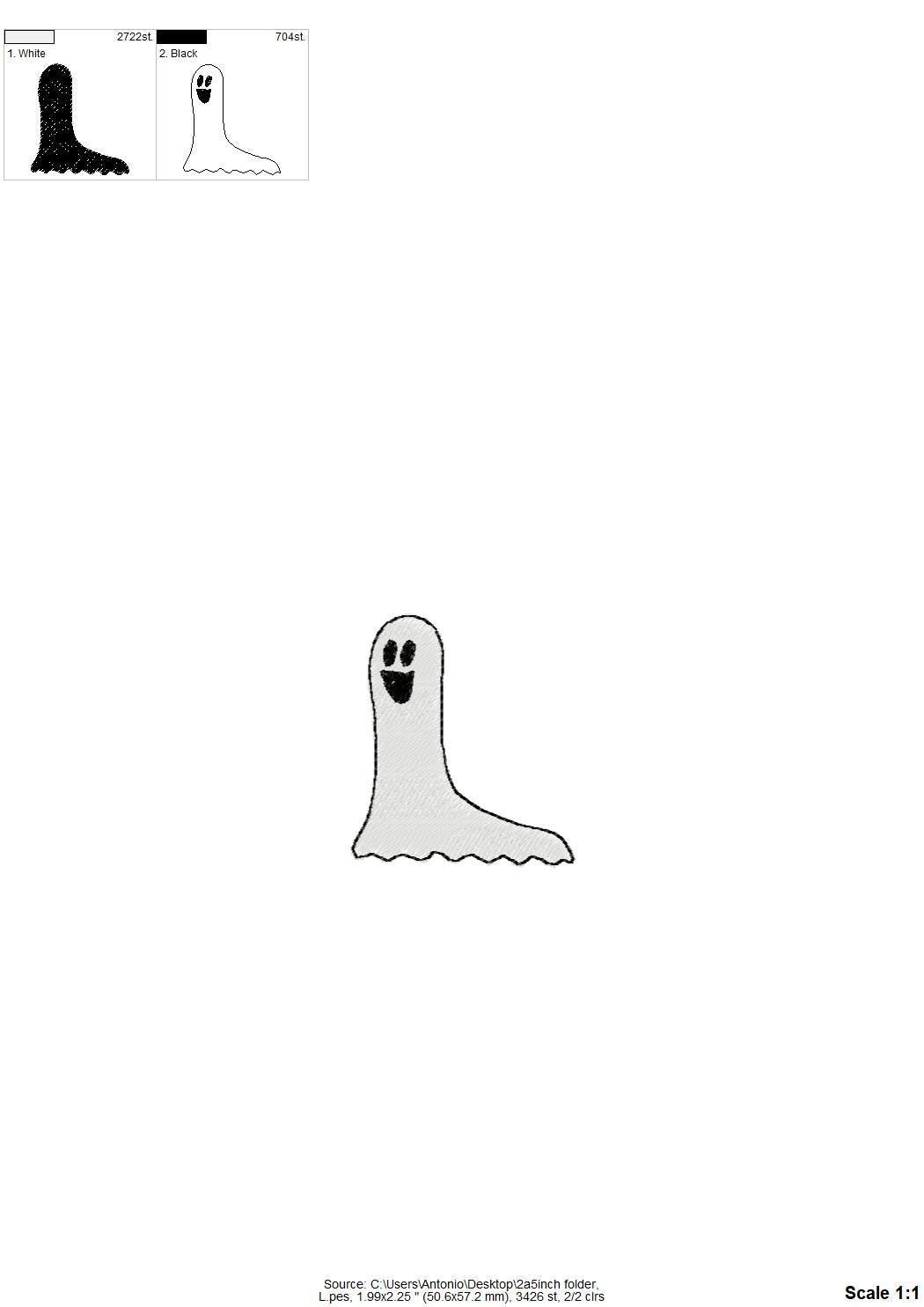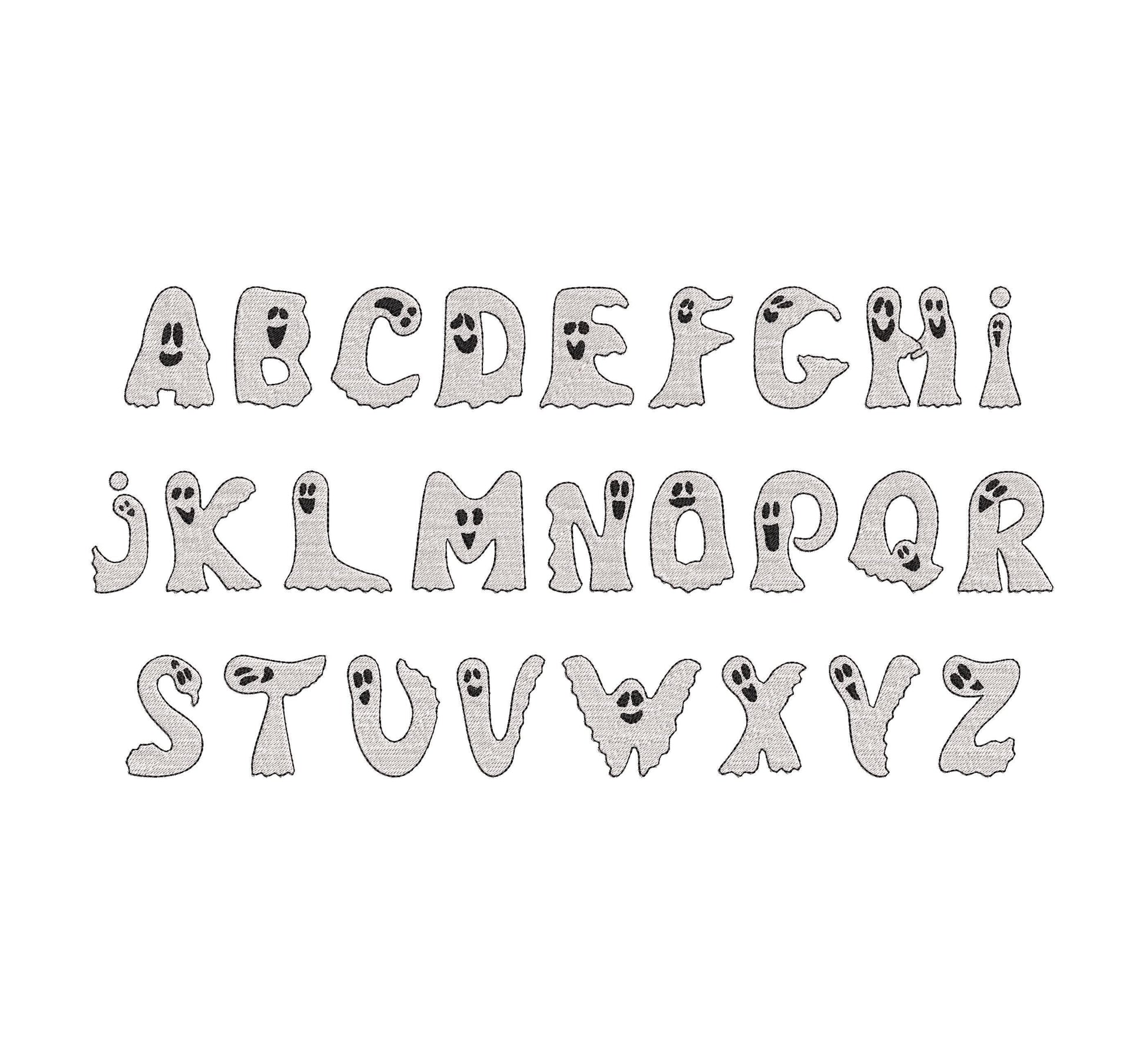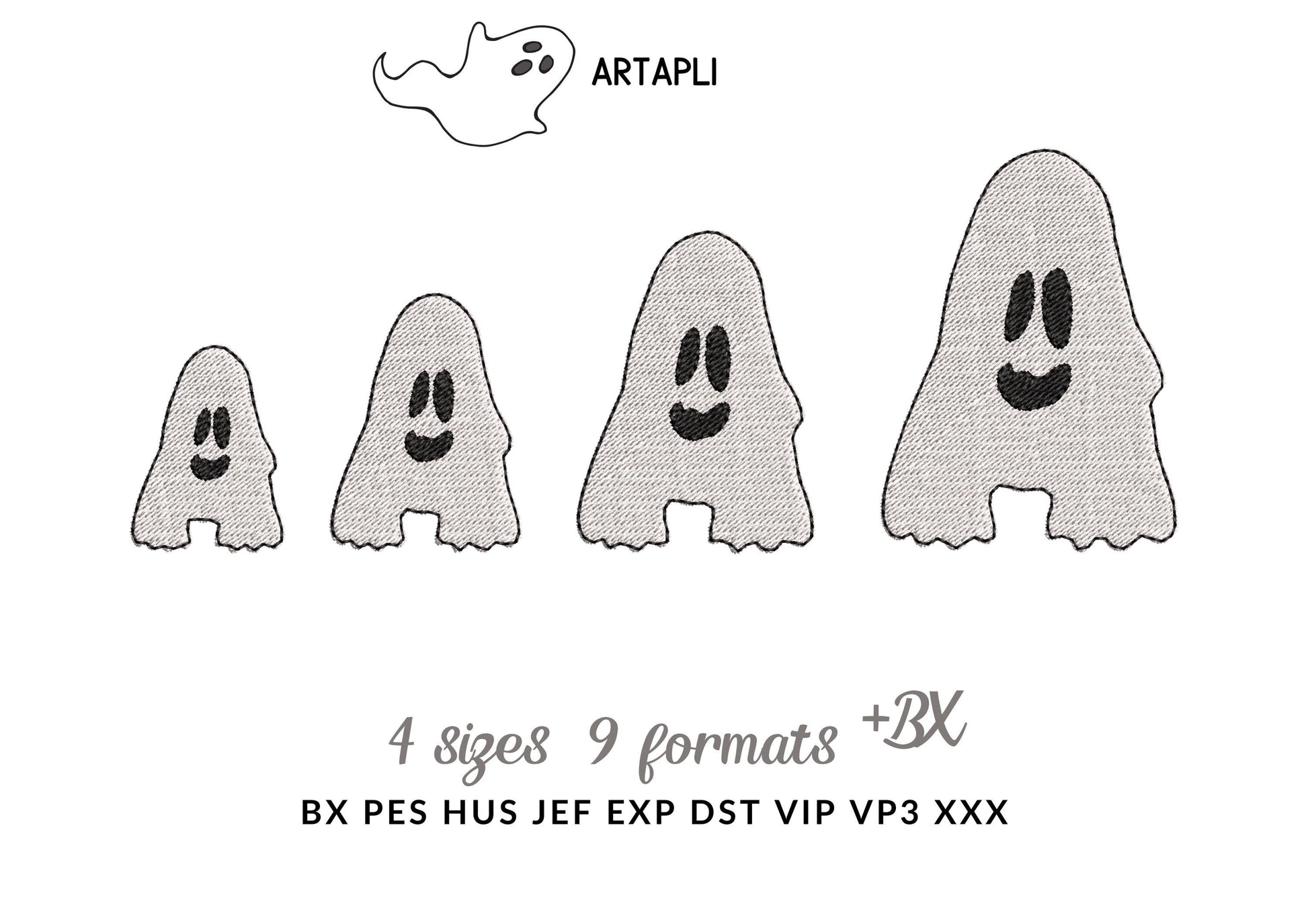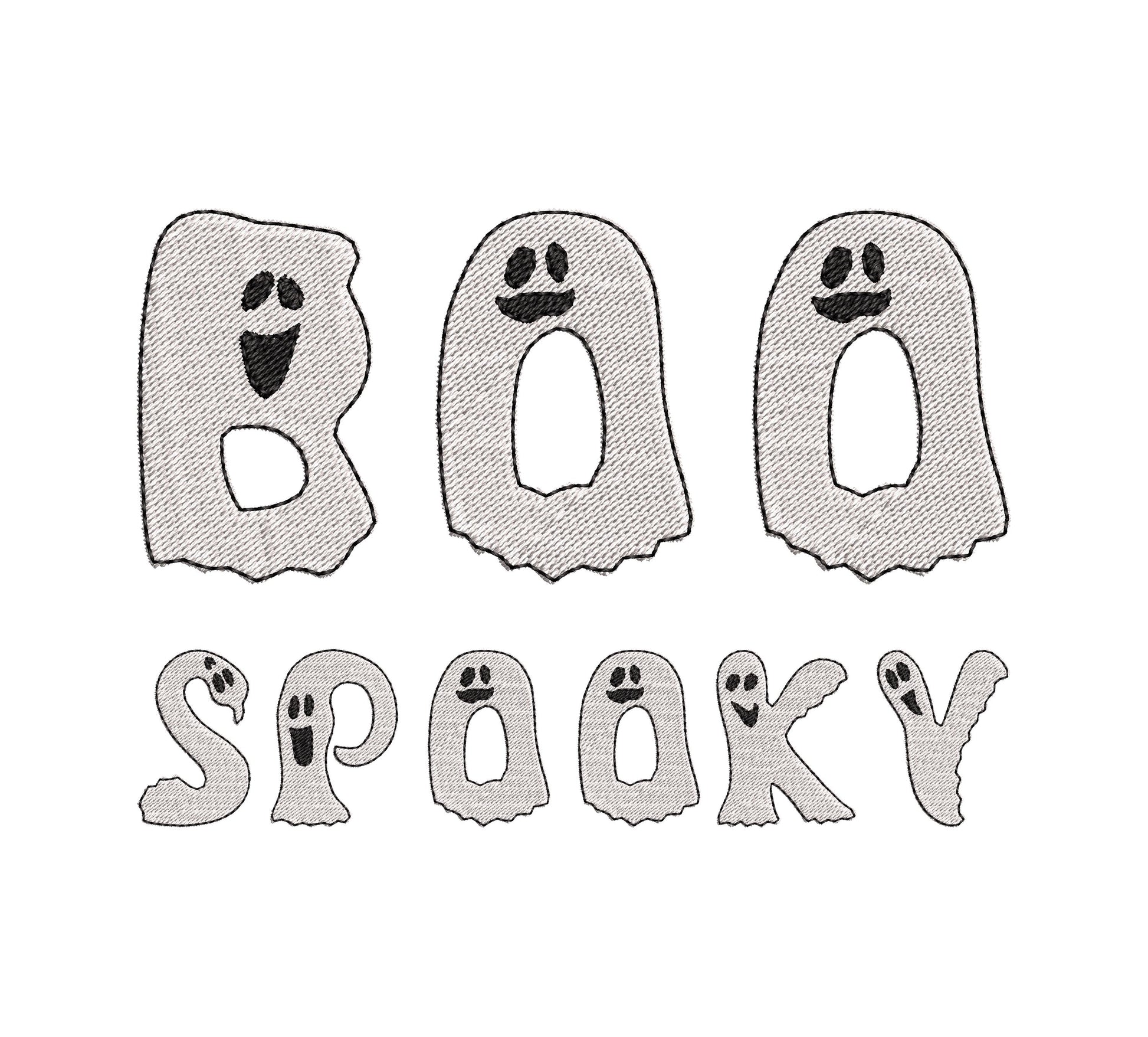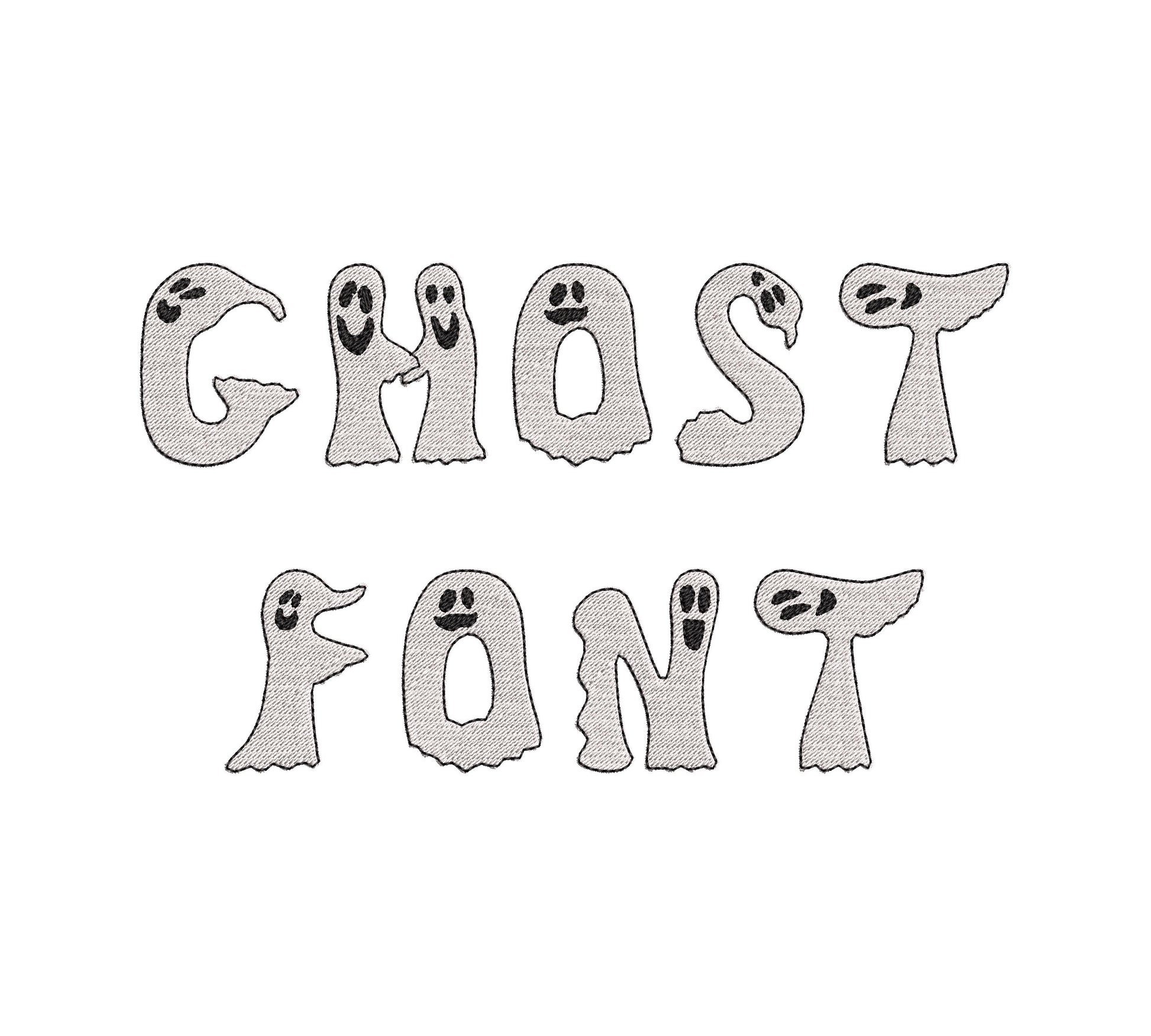
Ghost Font Fill Stitch Alphabet
Or click to open the linkA cute little ghost font in fill stitch. Sweet for Halloween baby and kids' shirts, bibs and treat bags.
Uppercase letters A to Z in four sizes: 1.8, 2, 2.5 and 3 inches.
- Ghost fill stitch font
- Uppercase letters A-Z